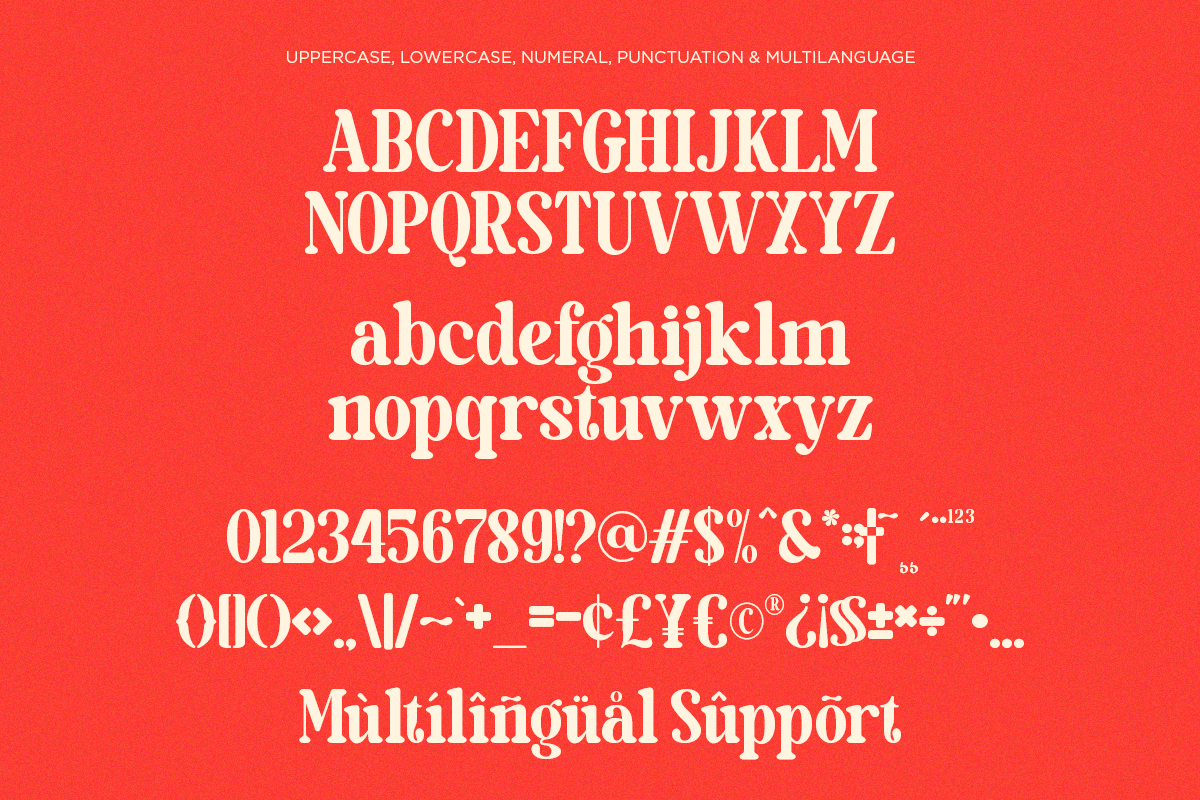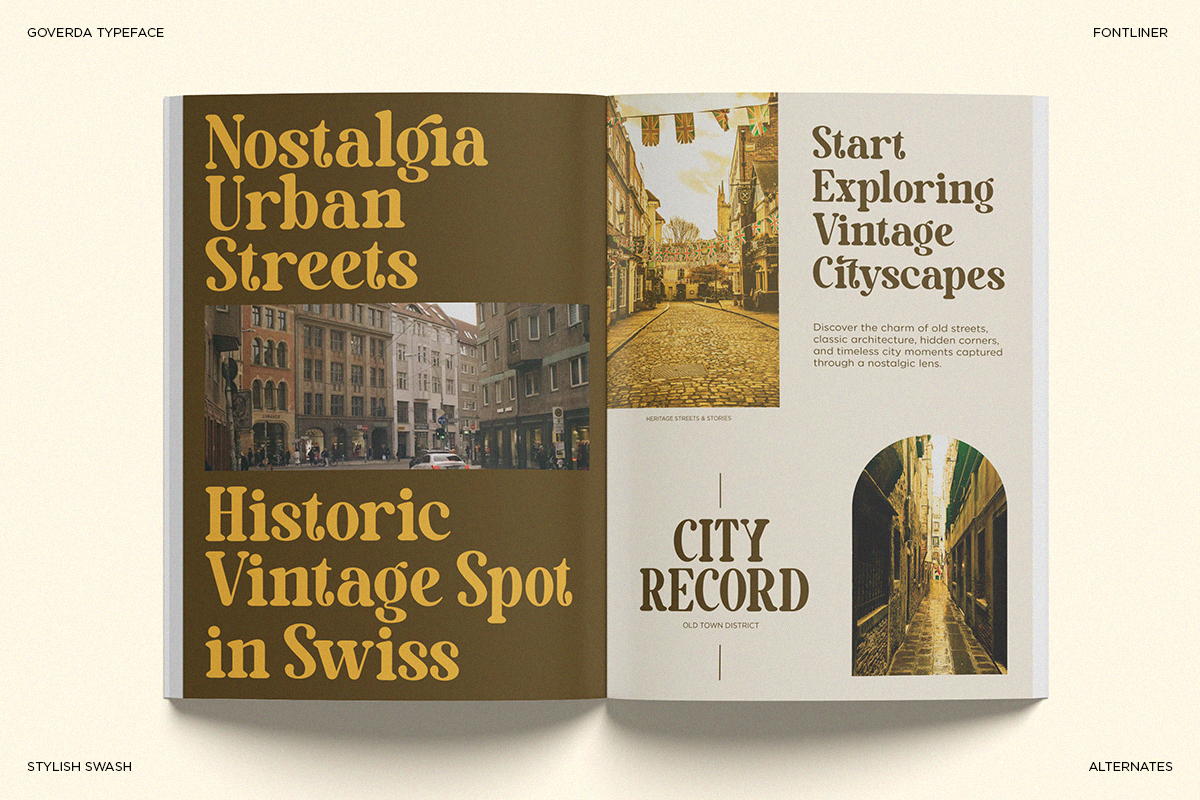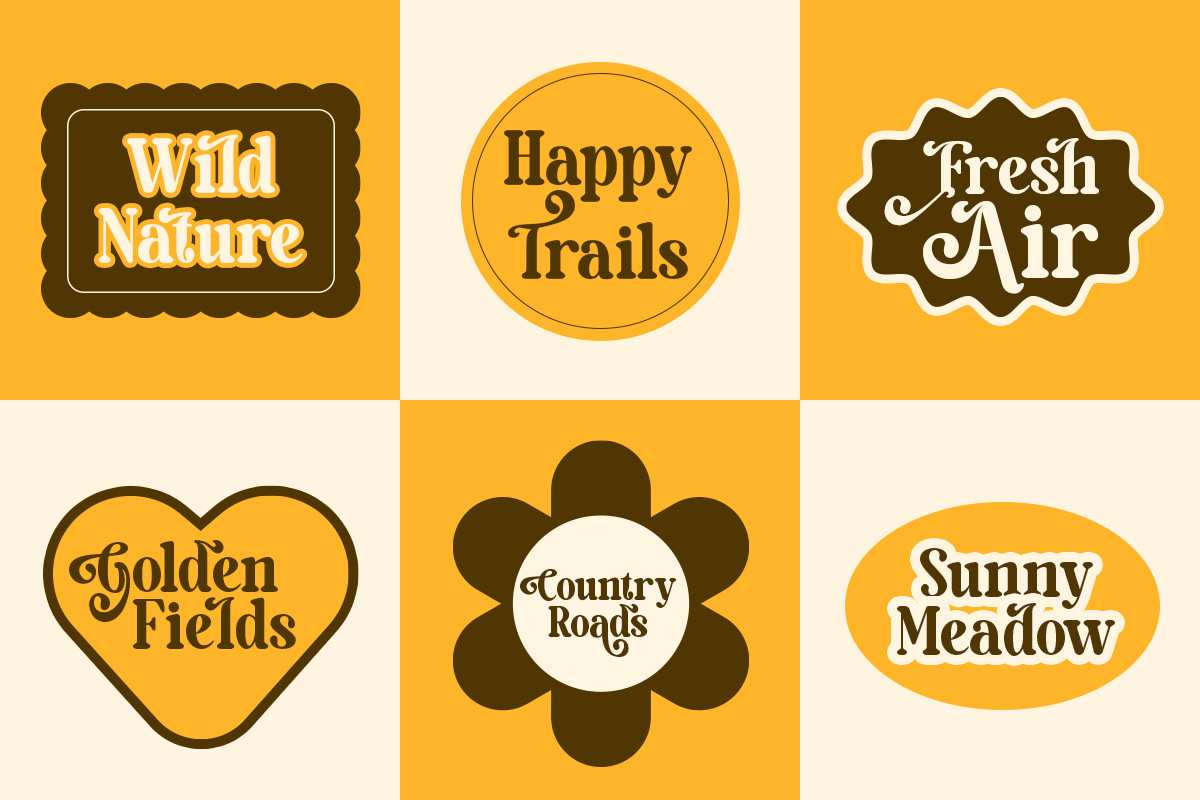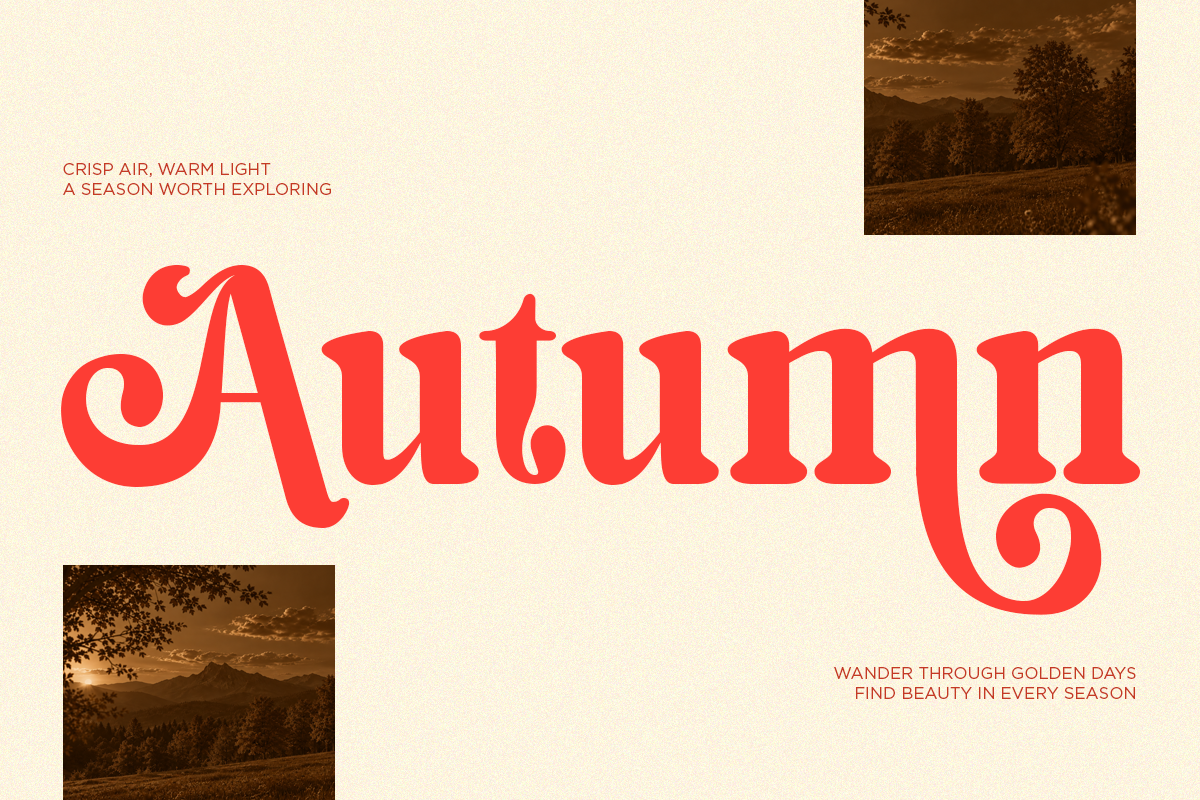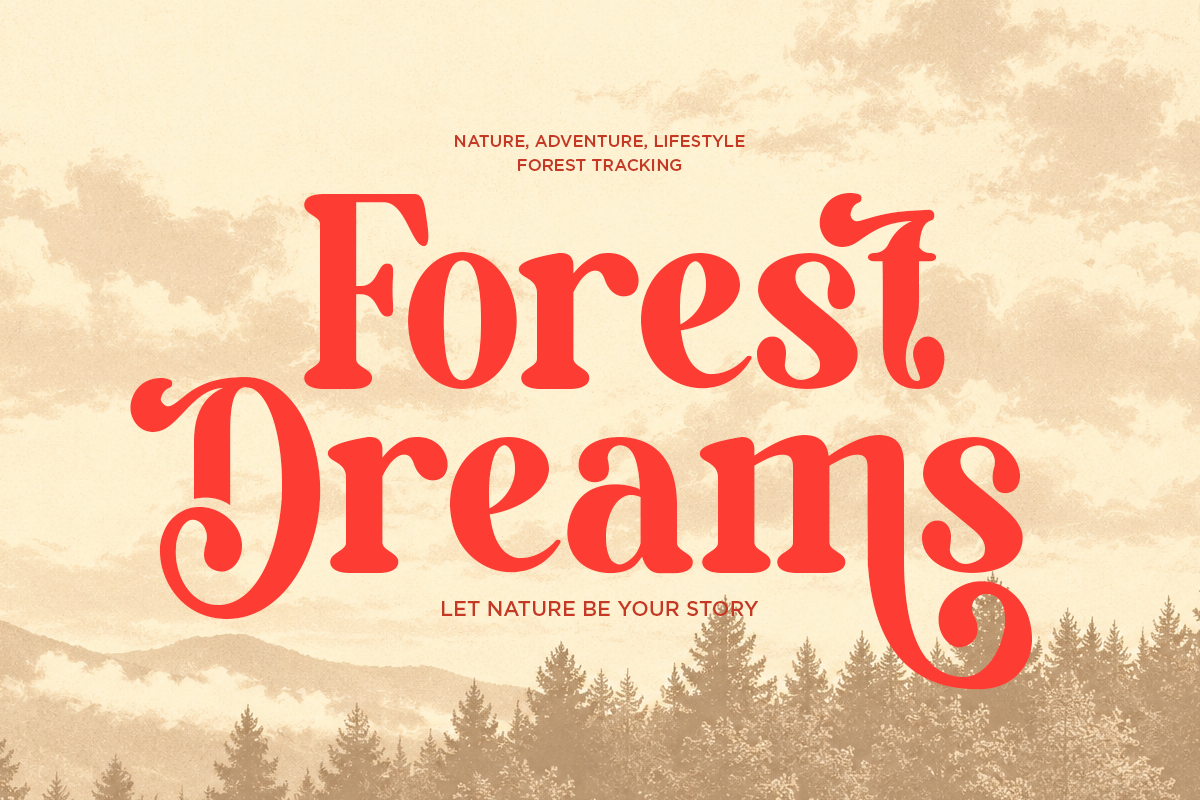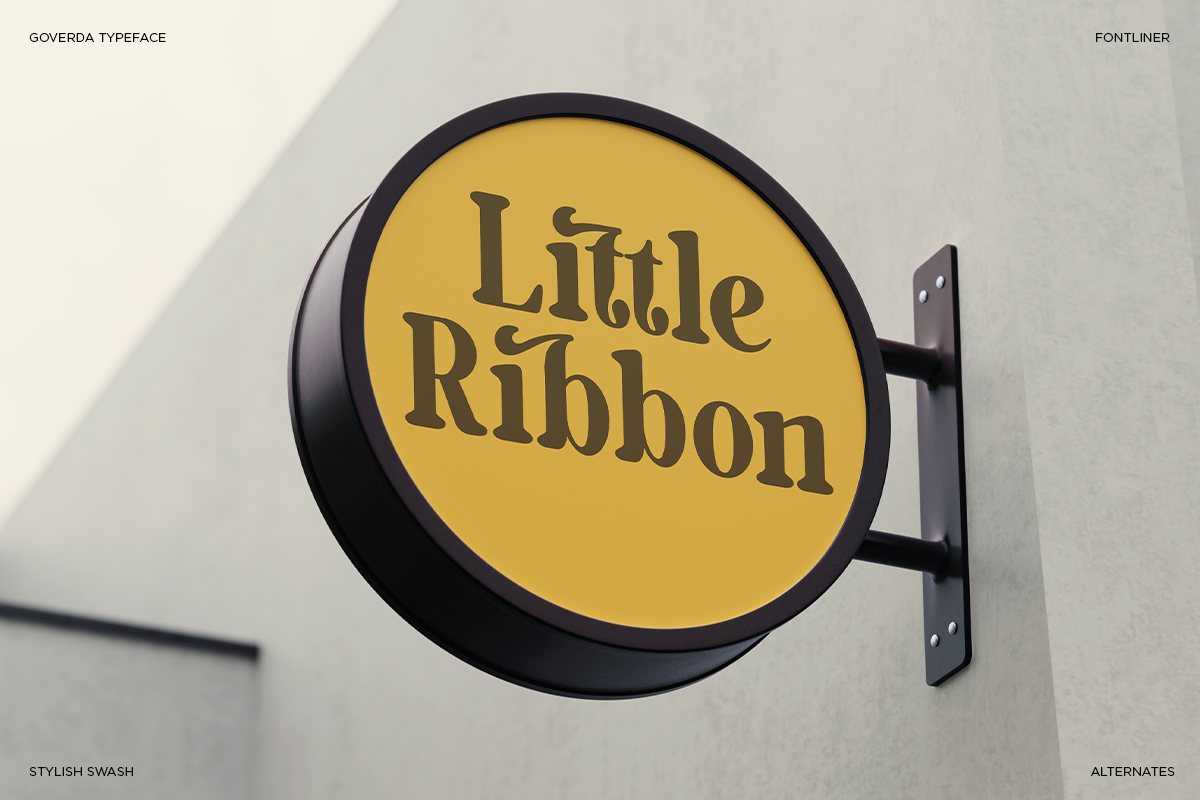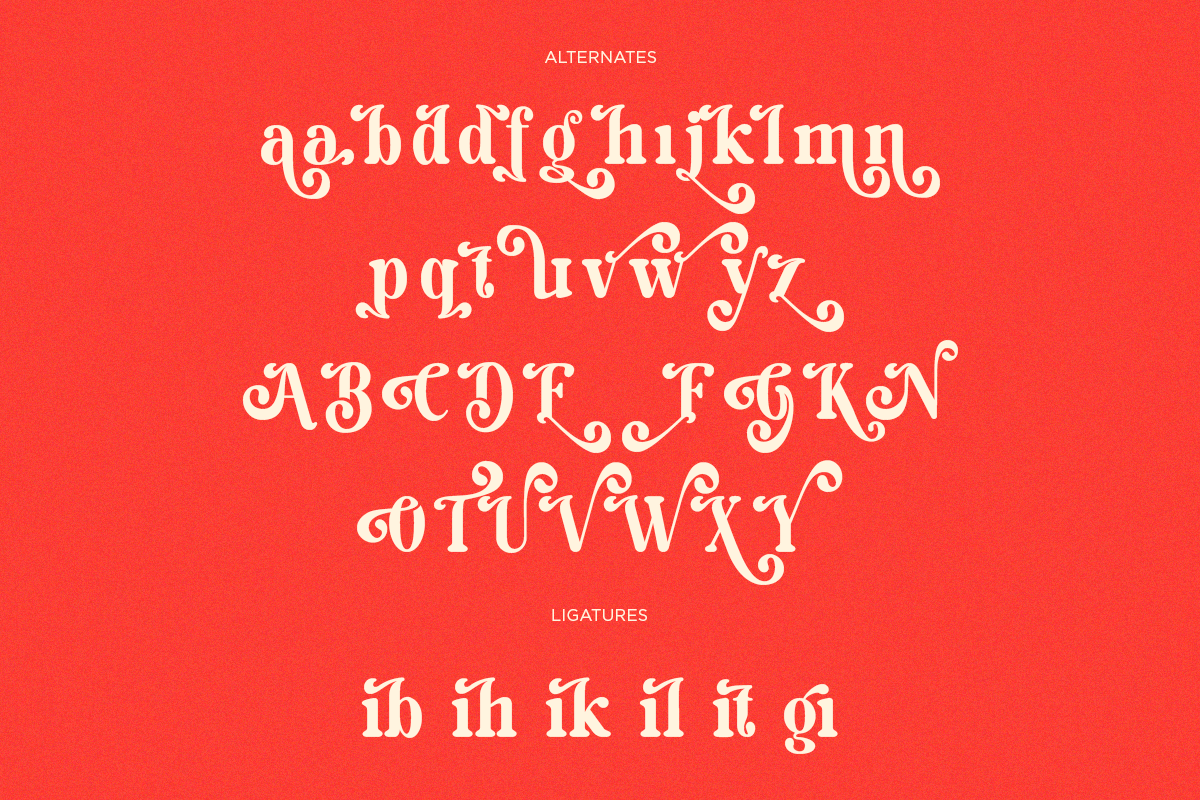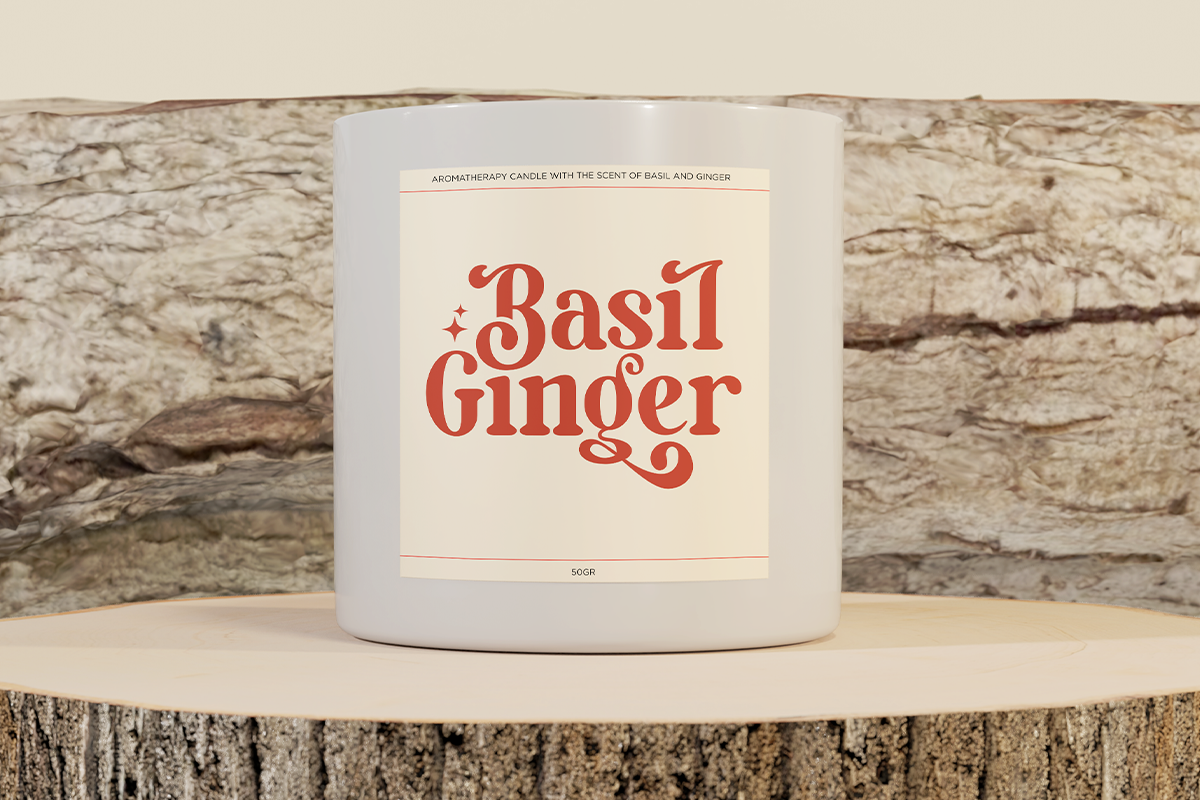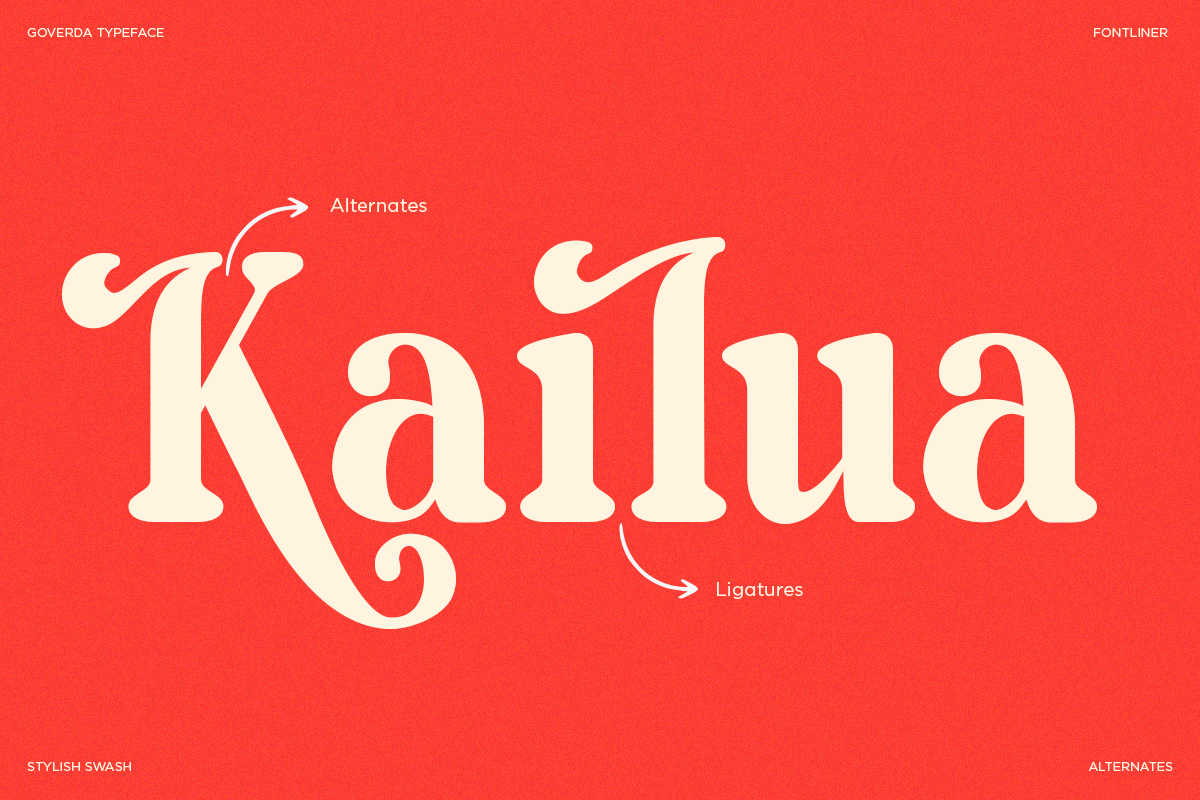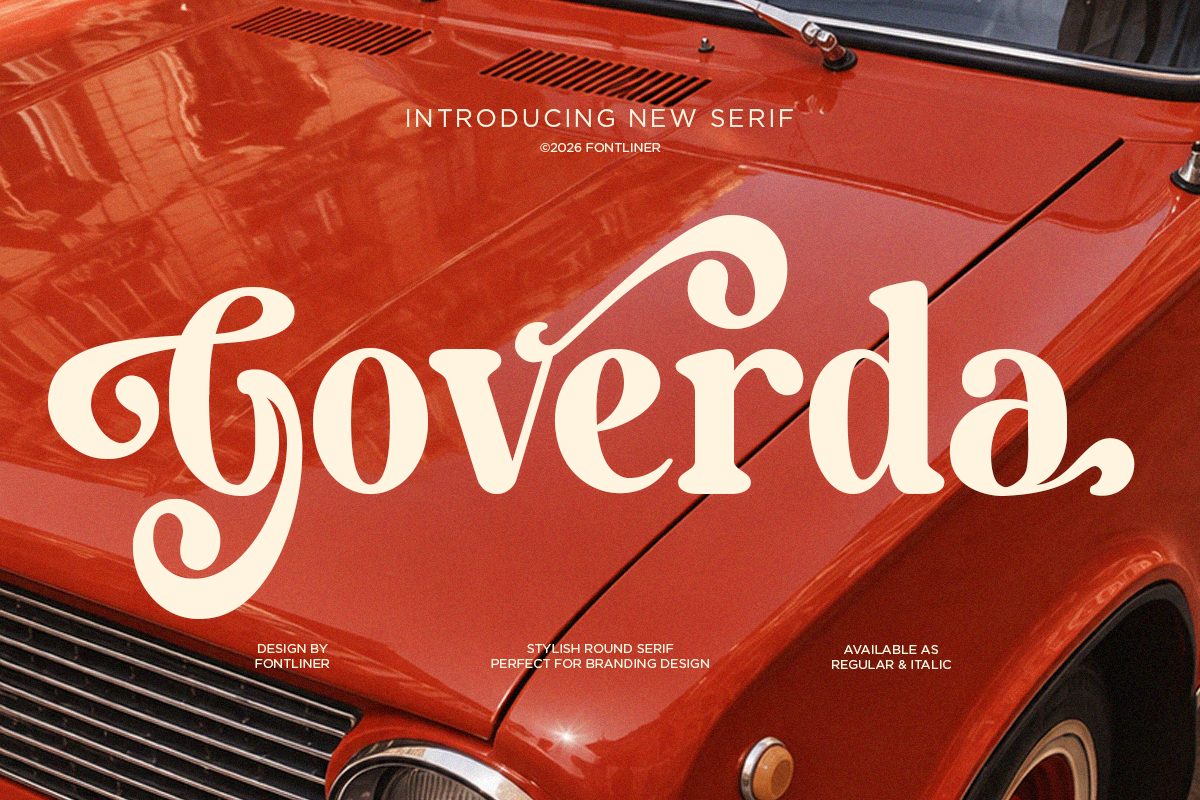
Goverda – Vintage Decorative Font
Goverda is a vintage serif display font inspired by nostalgic typography, classic signage, and timeless editorial design. Featuring bold serif forms, distinctive curves, decorative details, and an expressive retro character, Goverda brings a strong visual personality to every composition.
Perfect for logos, branding, posters, packaging, editorial layouts, magazine covers, book covers, signage, labels, badges, invitations, apparel, and vintage-inspired advertising. Its versatile style works beautifully for Western aesthetics, retro branding, heritage projects, lifestyle products, and nostalgic visual identities.
Goverda is designed to make headlines stand out while adding a distinctive handcrafted feel to modern and vintage compositions. It also includes multilingual support and a wide range of characters for versatile creative applications.
Regular and Italic
Special Aletrnates
Number, Symbol, and Punctuation